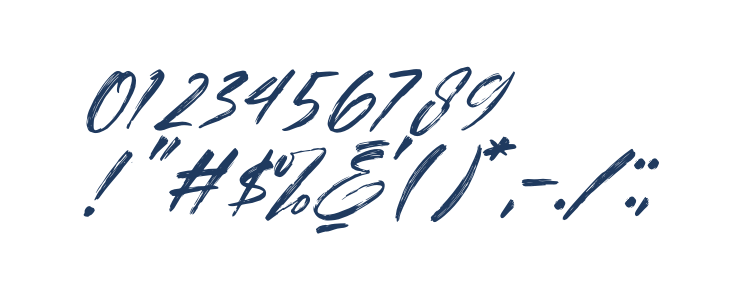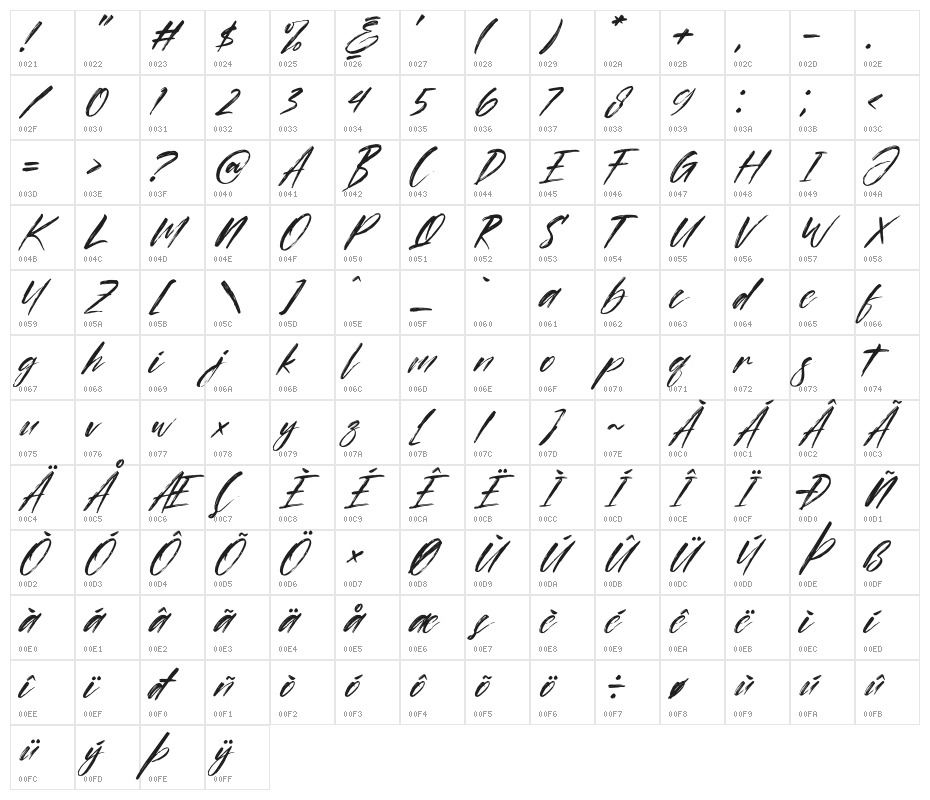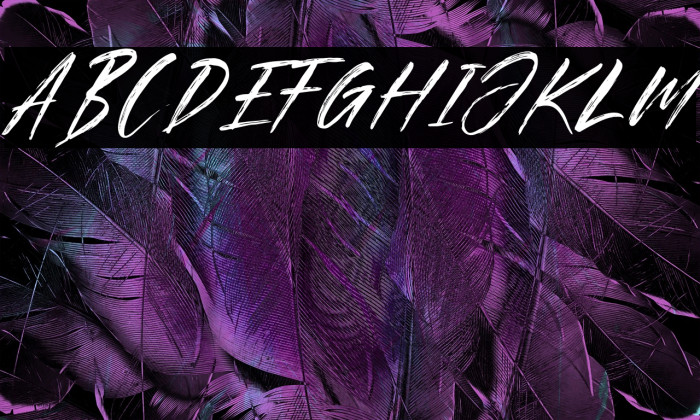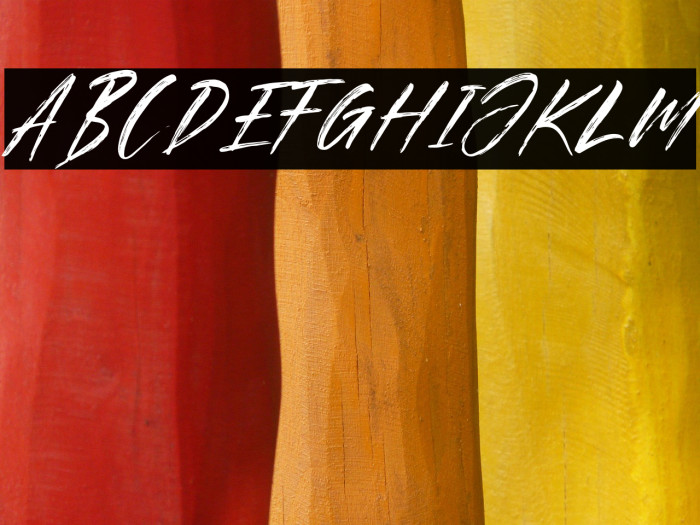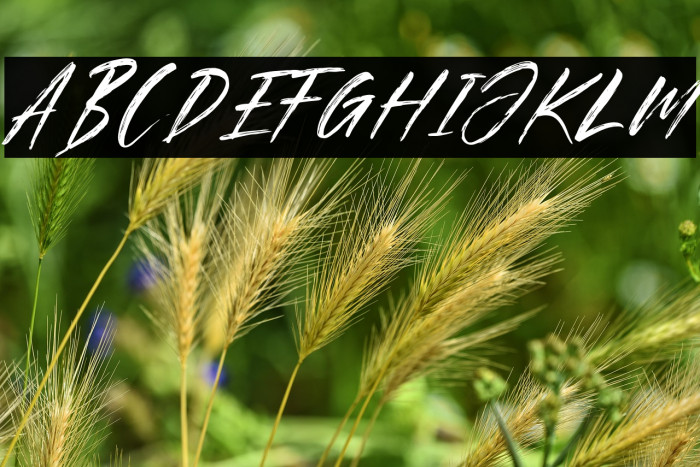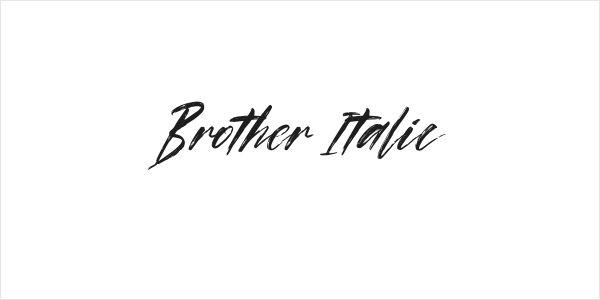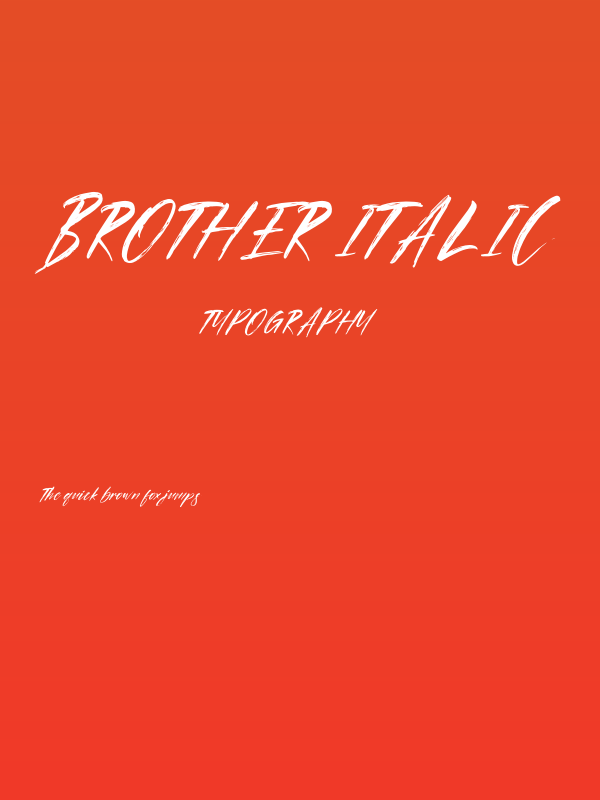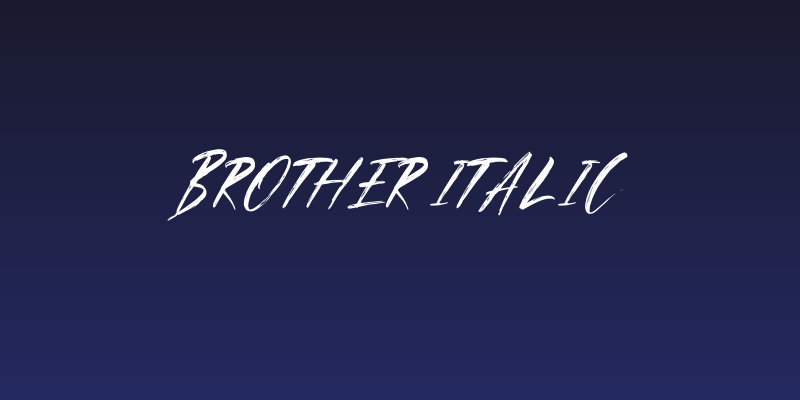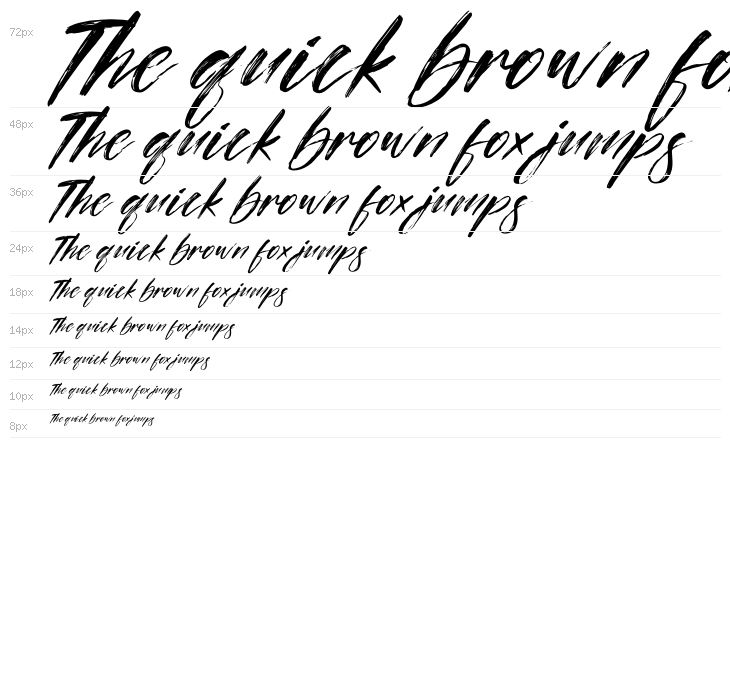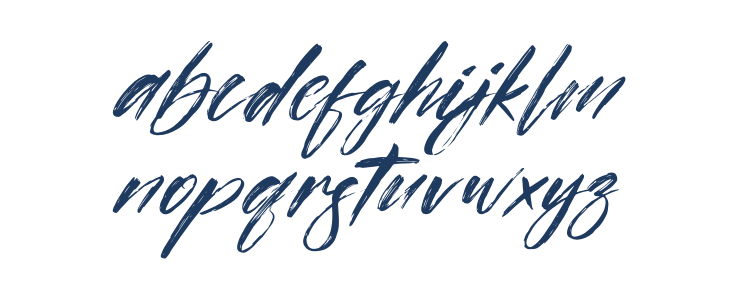
Brother Italic Font
Brother Italic Description
This font exhibits a dynamic and expressive handwritten style, characterized by its fluid, cursive strokes and a slightly slanted orientation. The letters are bold and energetic, with a brush-like texture that adds a sense of movement and spontaneity. The uppercase and lowercase letters maintain a consistent style, with varying stroke thickness that enhances the visual interest. Numbers and special characters follow the same lively aesthetic, making the font versatile for creative projects. The overall impression is one of artistic flair and individuality, suitable for designs that require a personal touch.
| Proposed Projects | Ideal for branding, invitations, posters, and any project needing a personal, artistic touch. |